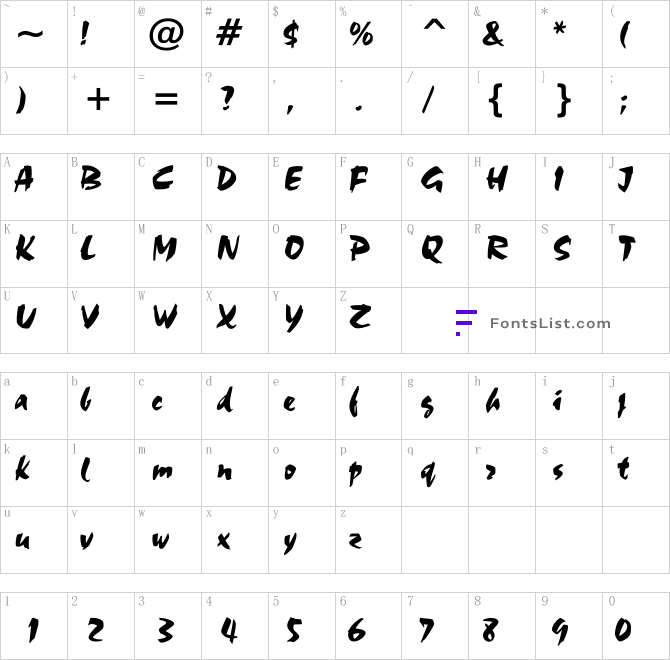
- Font Name:Cadellinis
Cadellinis.ttf is a very beautiful artistic font, Cadellinis.ttf is widely used in the design and printing of various books and pictures,Cadellinis.ttf has a strong visual impact,Cadellinis.ttf is a commonly used font in newspapers, magazines and books, and is used in posters, e-commerce Poster design, store design, logo design, font design and other fields.Cadellinis.